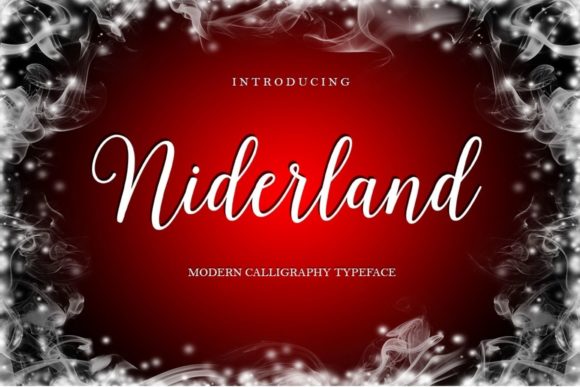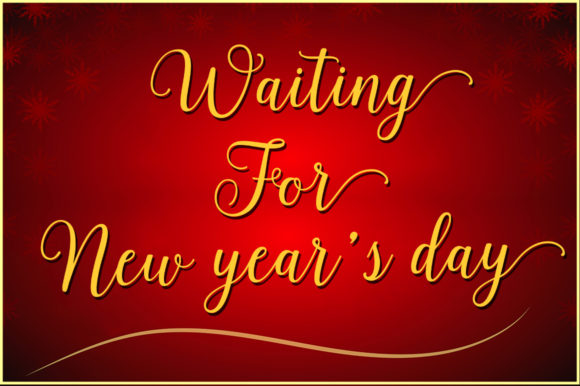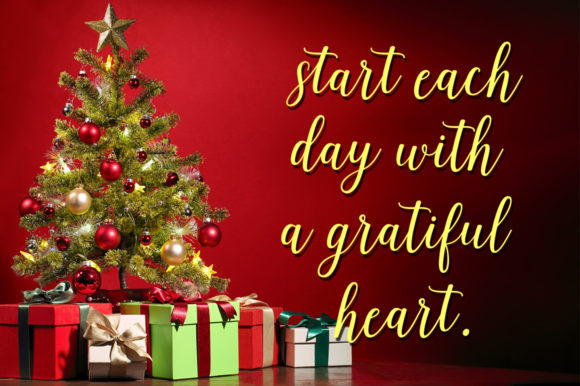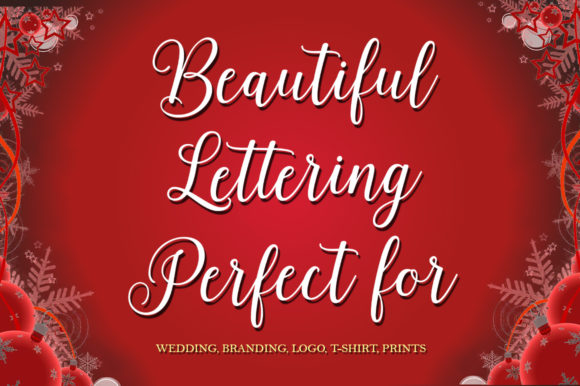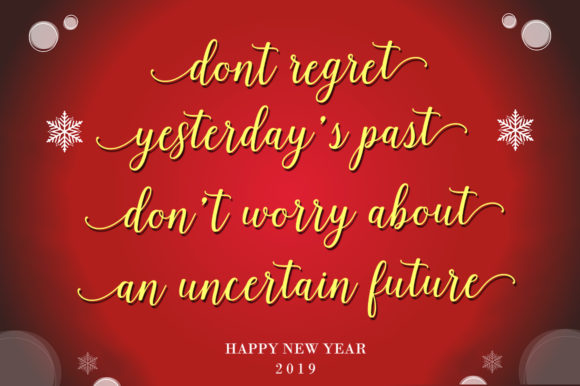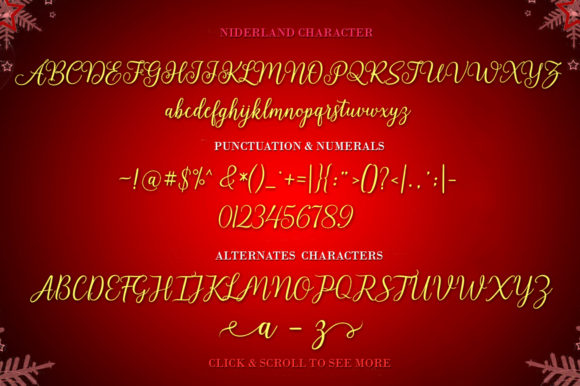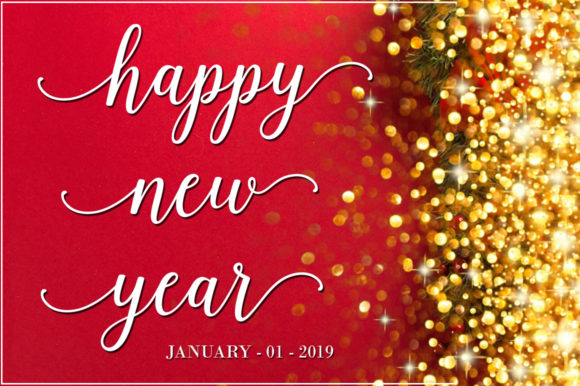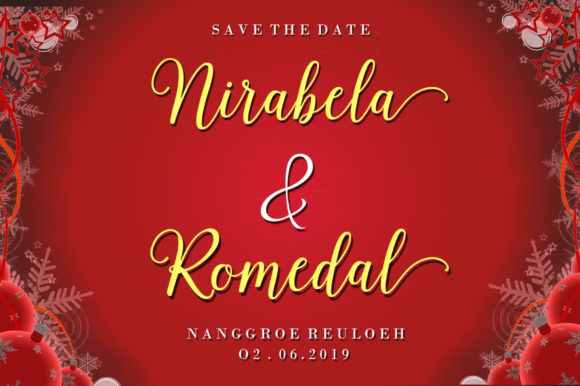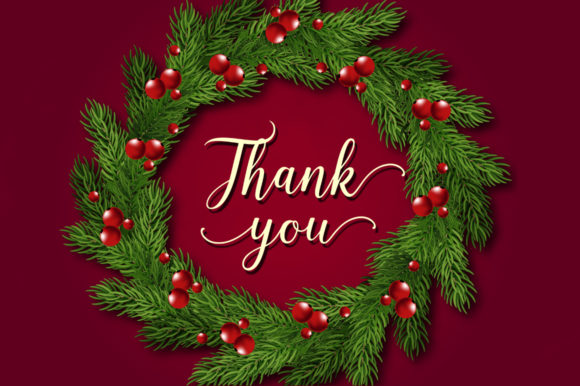
Niderland Script Font
Meet The Niderland, a modern script font that effortlessly blends a handwritten essence with a trendy and feminine style. This font is not just a typographic choice; it’s a design statement that brings a touch of contemporary charm and personal flair to a variety of creative projects.
The Niderland’s handwritten quality adds a genuine and authentic touch to your designs. Its modern script style makes it a versatile choice for a wide range of applications. Whether you’re creating logos, designing T-shirts, working on product packaging, crafting greeting cards, establishing brand identities, curating blogs, or preparing elegant wedding invitations, The Niderland lends a trendy and feminine aesthetic to your work.
The font’s versatility shines through in its ability to convey a sense of personal charm. It goes beyond mere letters and words, becoming a key design element that enhances the overall appeal of your projects. The Niderland’s trendy and feminine style is well-suited for brands and creative endeavors that seek to communicate a contemporary and chic image.
For logos, The Niderland offers a distinctive and memorable typographic identity. T-shirts adorned with this font exude a modern and stylish vibe. Product packaging benefits from its elegant script, adding a touch of sophistication. Greeting cards and wedding invitations become uniquely personal and visually appealing.
In essence, The Niderland is more than just a font; it’s a design companion that brings a trendy and feminine touch to your creative toolkit. Elevate your logos, T-shirts, product packaging, greeting cards, brands, blogs, wedding invitations, and more with the personal charm of The Niderland. Embrace the modern script and let it infuse your designs with a contemporary and stylish allure.